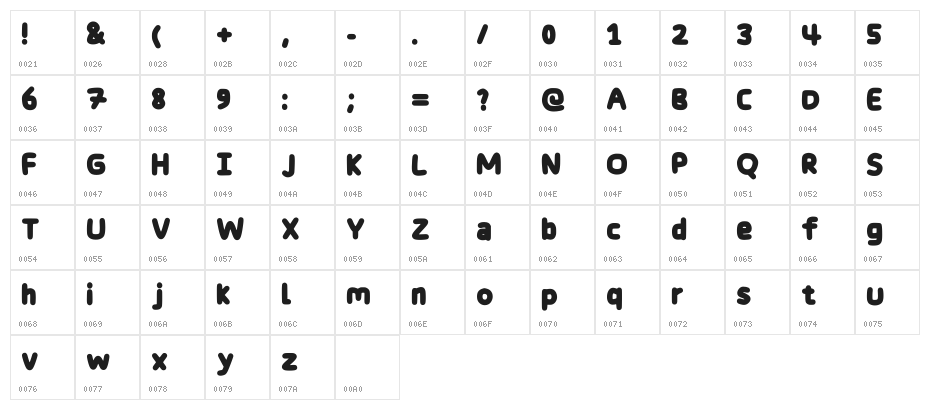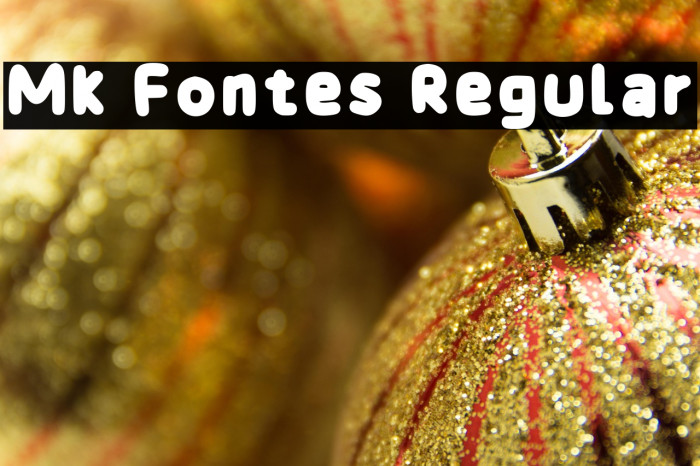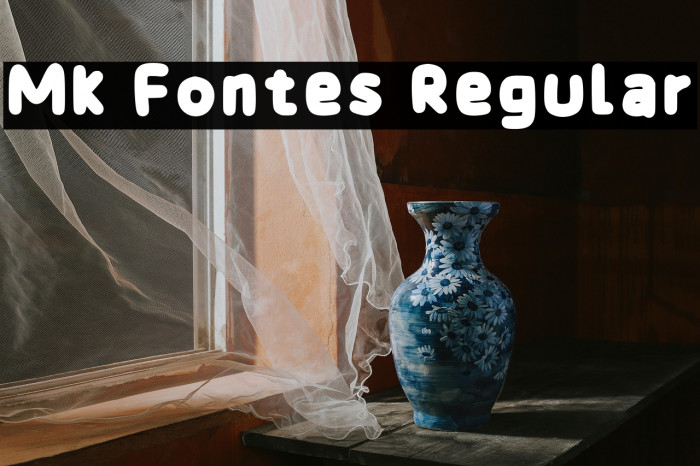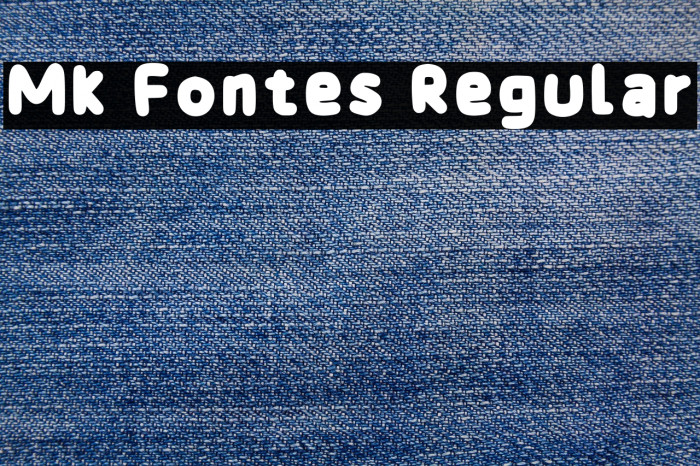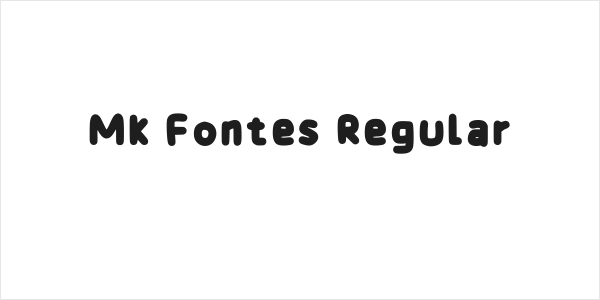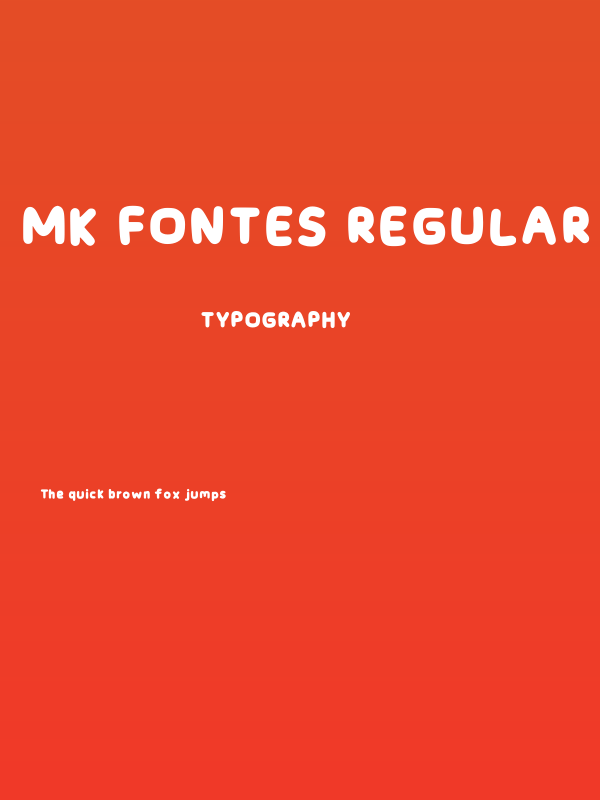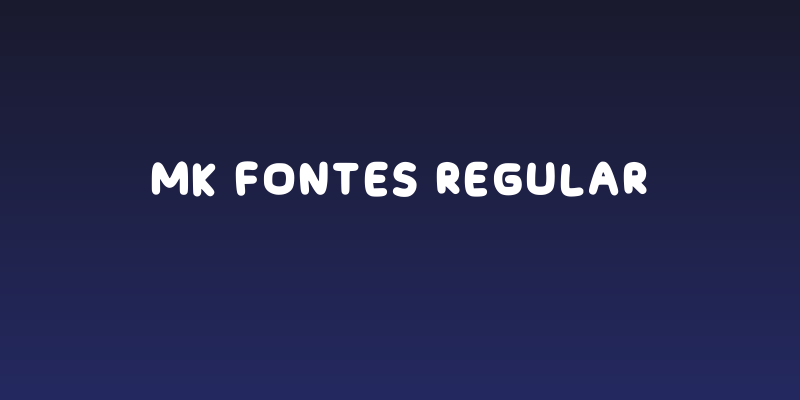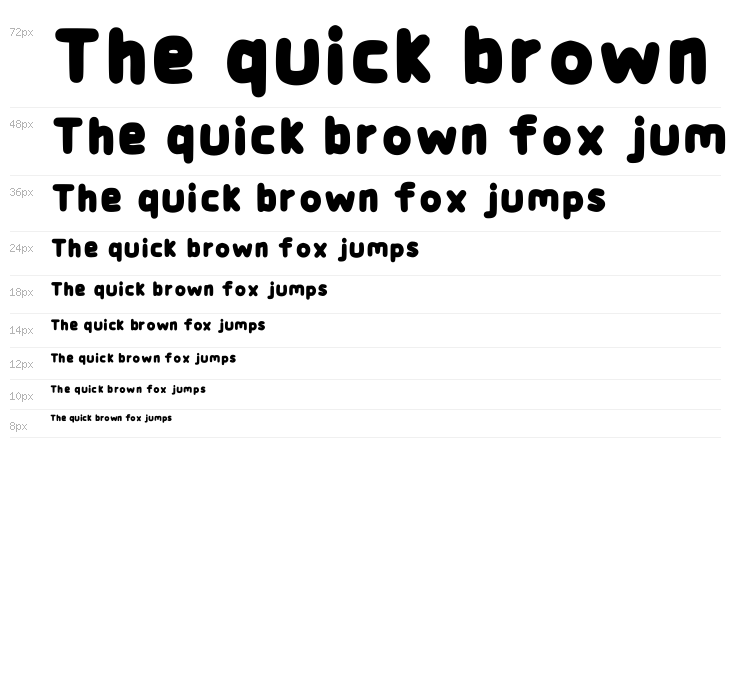
Mk Fontes Regular Font
Mk Fontes Regular Description
This font features a playful and rounded design, characterized by its bold and smooth curves. The letters are evenly spaced, providing a clean and approachable appearance. The overall style is casual and friendly, making it suitable for a variety of informal applications. The numbers and special characters maintain the same rounded aesthetic, ensuring consistency throughout the typeface. The font's simplicity and boldness make it easy to read, even at smaller sizes, while its unique style adds a touch of personality to any project.
| Proposed Projects | Ideal for children's books, playful branding, casual invitations, and social media graphics. |